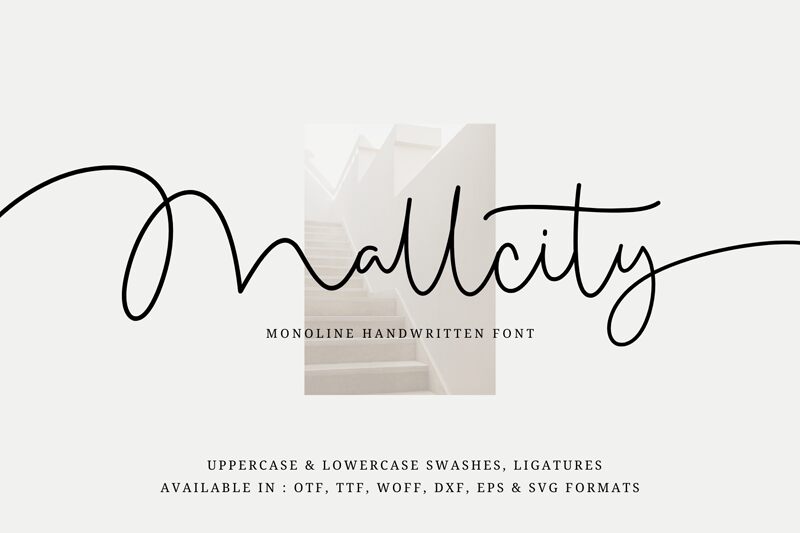
Mallcity by sronstudio is a beautifully crafted handwritten font that exudes an air of elegance and personal touch. This light font boasts an organic flow, creating an effortlessly stylish aesthetic that feels both approachable and sophisticated. Its delicate lines and smooth curves bring a sense of fluidity, making it perfect for conveying a gentle and refined message.
Ideal for various design contexts, Mallcity shines in wedding invitations, personalized greeting cards, and branding that calls for a unique human element. Its distinctive charm makes it equally suited for social media graphics and fashion-related projects where a touch of individuality can make all the difference. Embrace Mallcity to add a graceful handwritten flair to your creations.